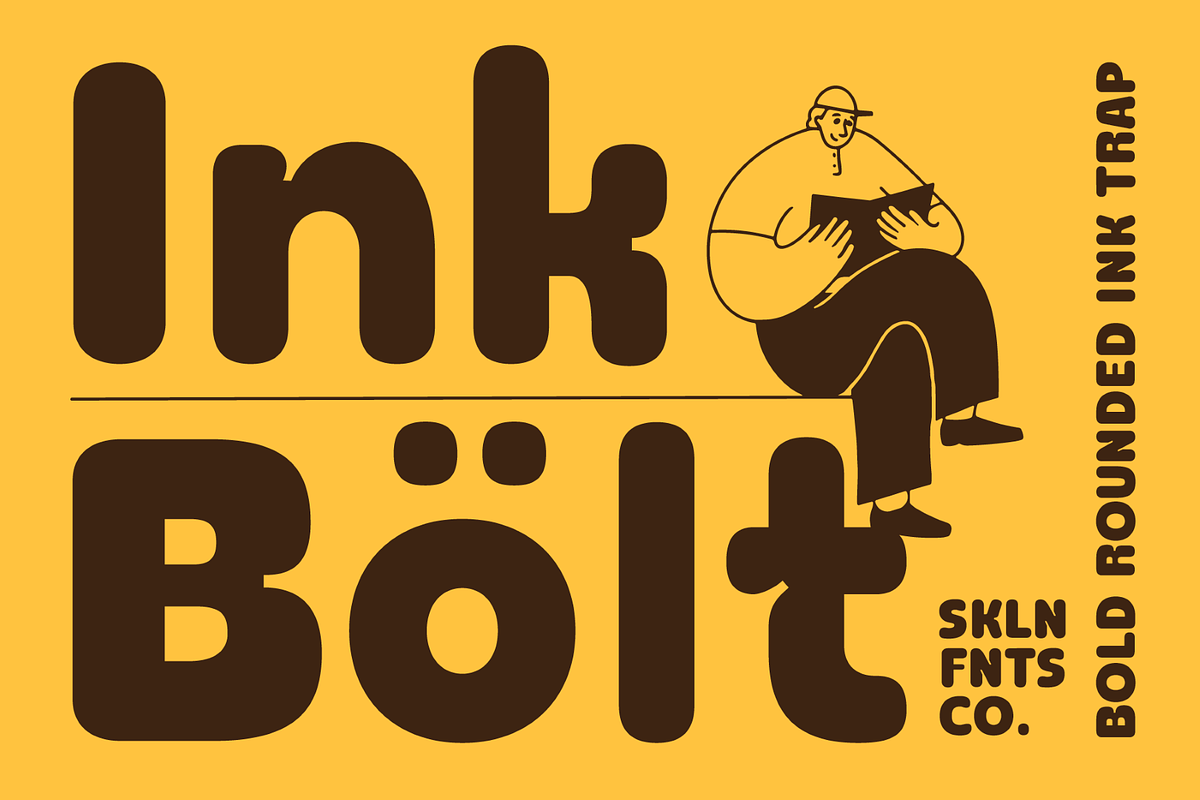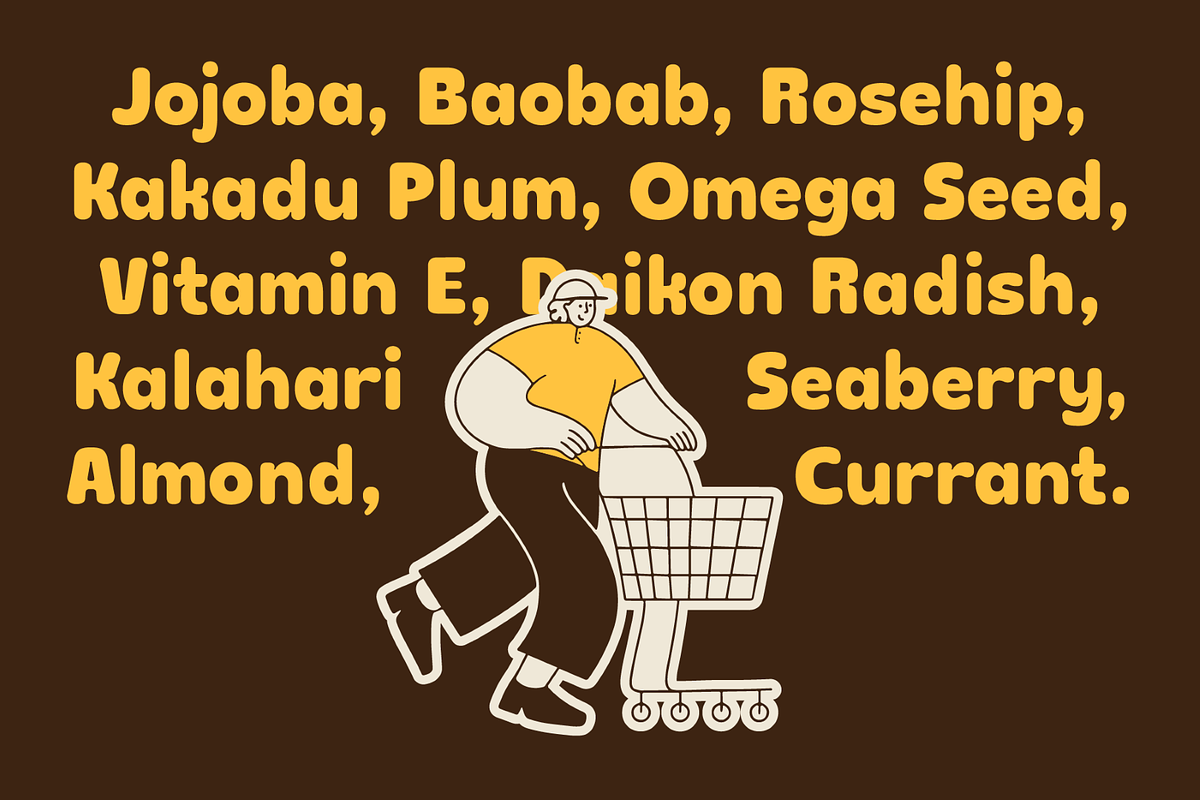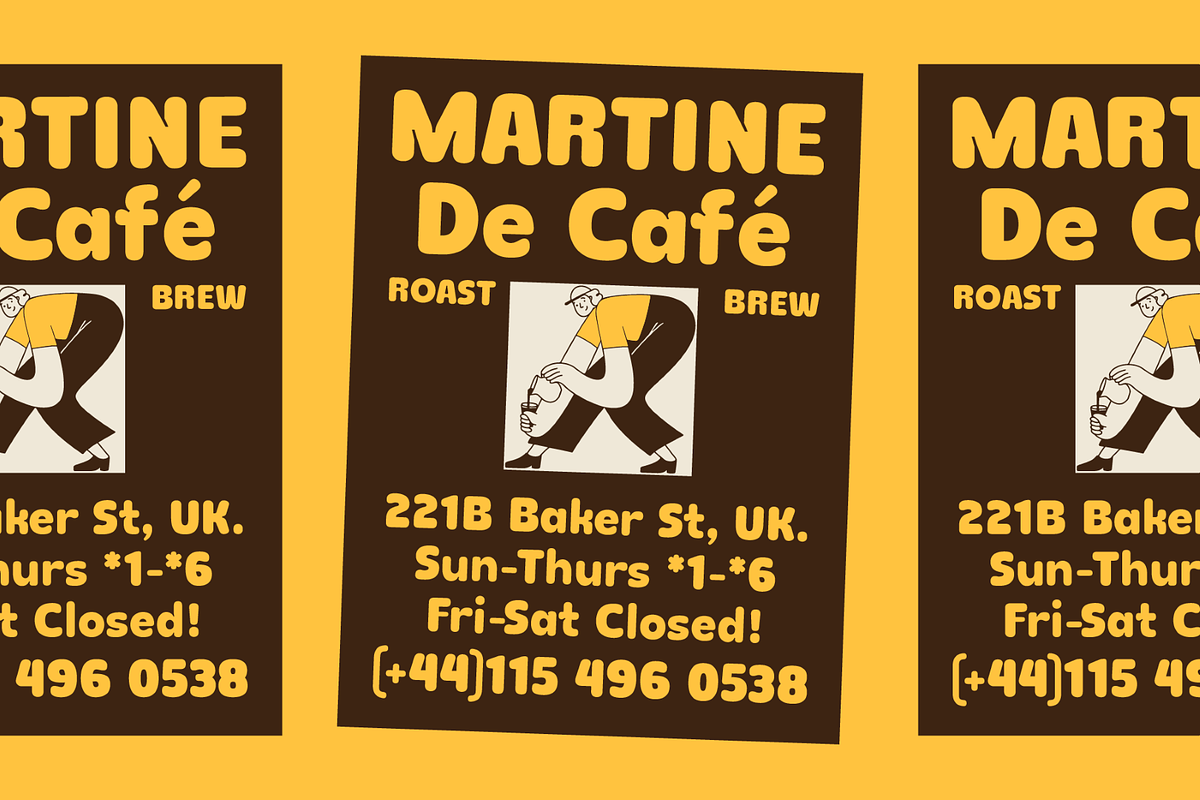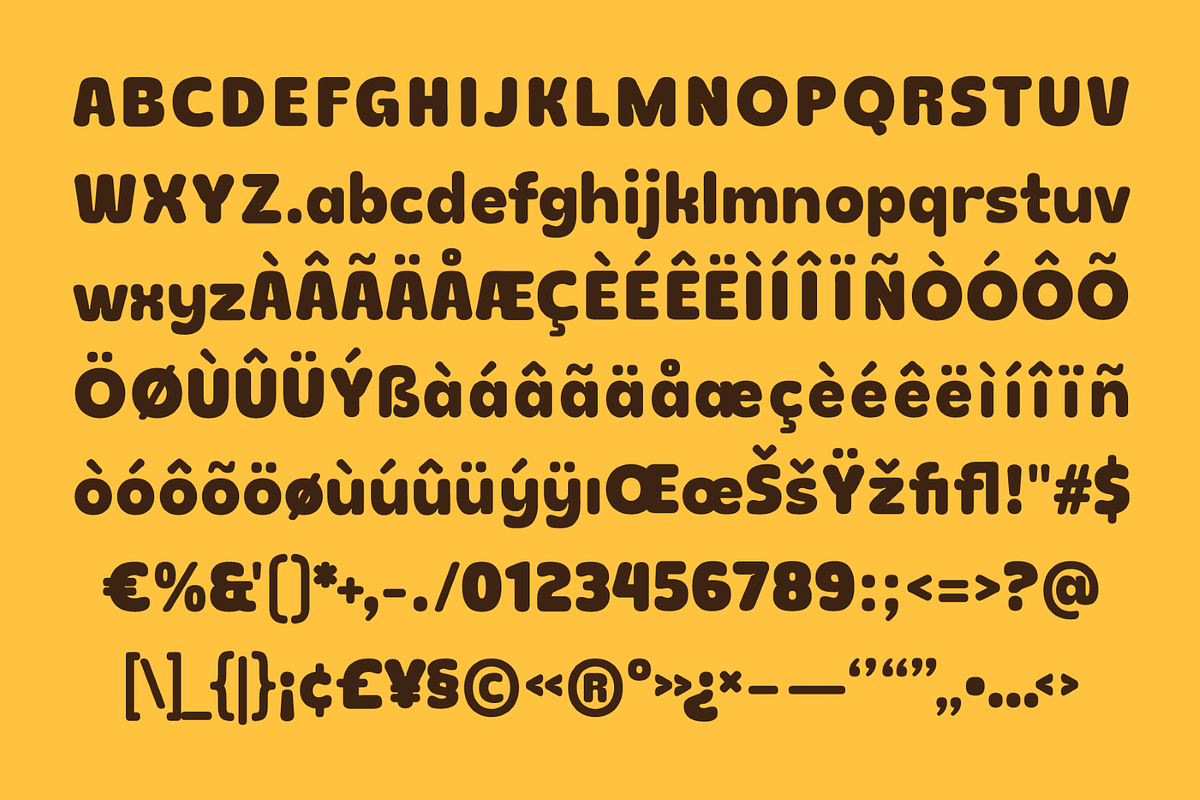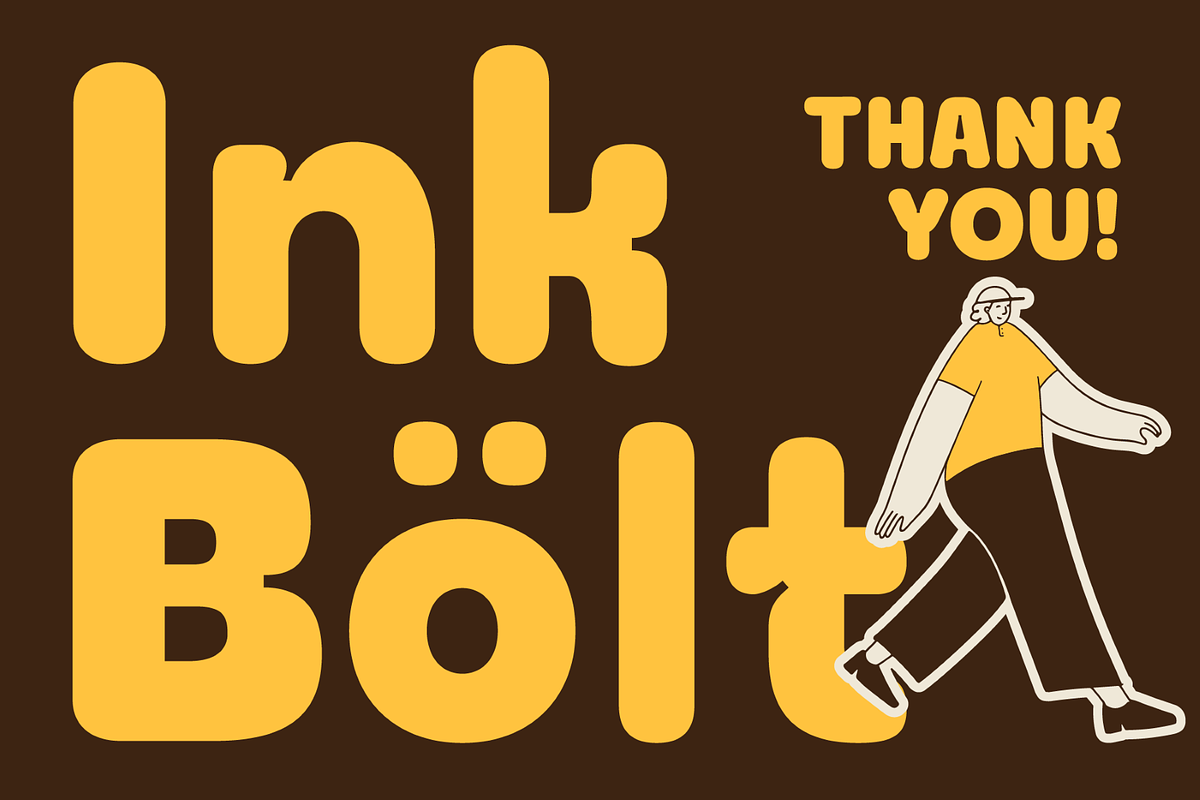
SFC Ink Bolt - Bold Rounded Ink‑Trap
SFC Ink Bolt is a bold rounded ink‑trap typeface shaped with thick curves, softened edges, and intentional ink‑trap detailing. Its letterforms feature balanced proportions, smooth transitions, and subtle structural cuts that create a clean yet expressive rhythm. The rounded construction adds warmth and approachability, while the bold weight reinforces strong typographic presence.
Designed with attention to clarity, contrast, and handcrafted shaping, SFC Ink Bolt carries a contemporary display personality with distinctive ink‑trap character. The typeface includes extended Latin support, multilingual characters, complete numerals, punctuation, and refined spacing that enhance its polished rounded aesthetic.
* Bold Rounded Ink Trap
* Smooth Curves & Thick Strokes
* Modern Display Personality
* Numerals & Punctuation
* Multi Language Support